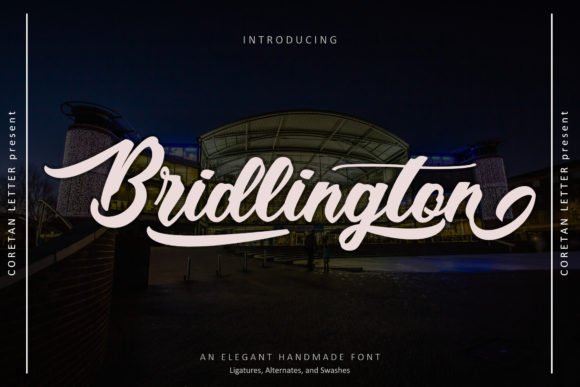
Introduction to Bridlington Font
Bridlington is a thick lettered and cursive handwritten font, crafted to give your headlines and logotype projects a stylish touch.
This font reads as strong, confident, and dynamic and can add tons of nostalgic character to your designs .
Key Features of Bridlington Font